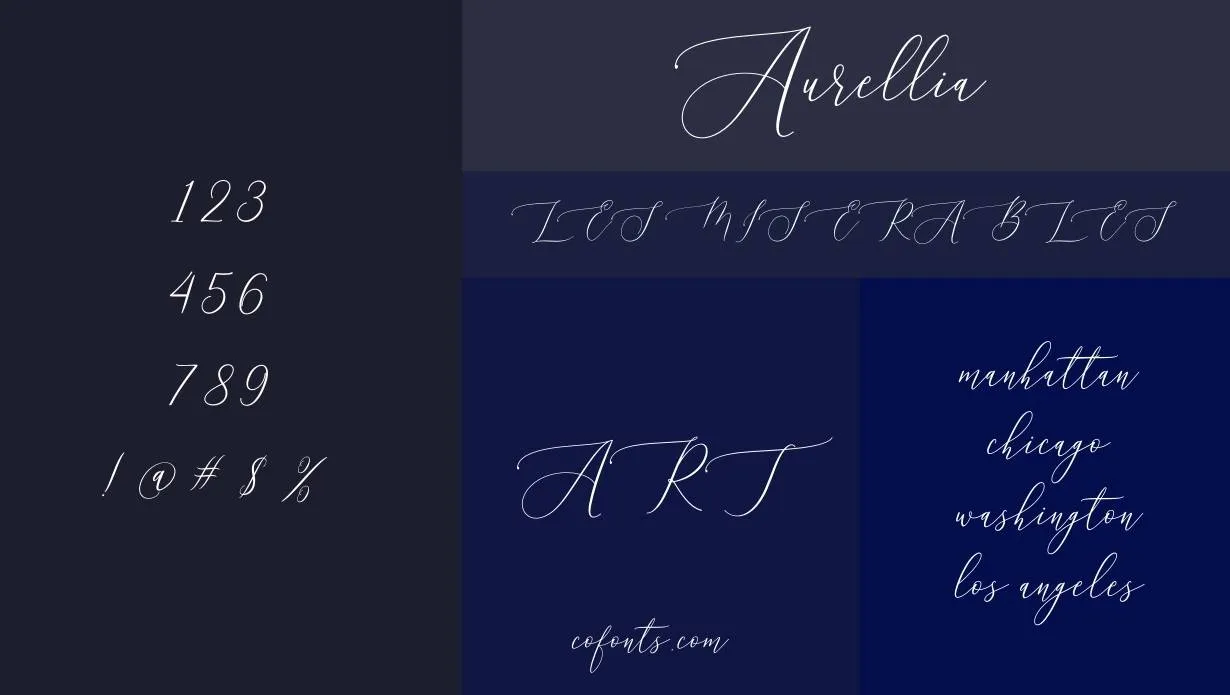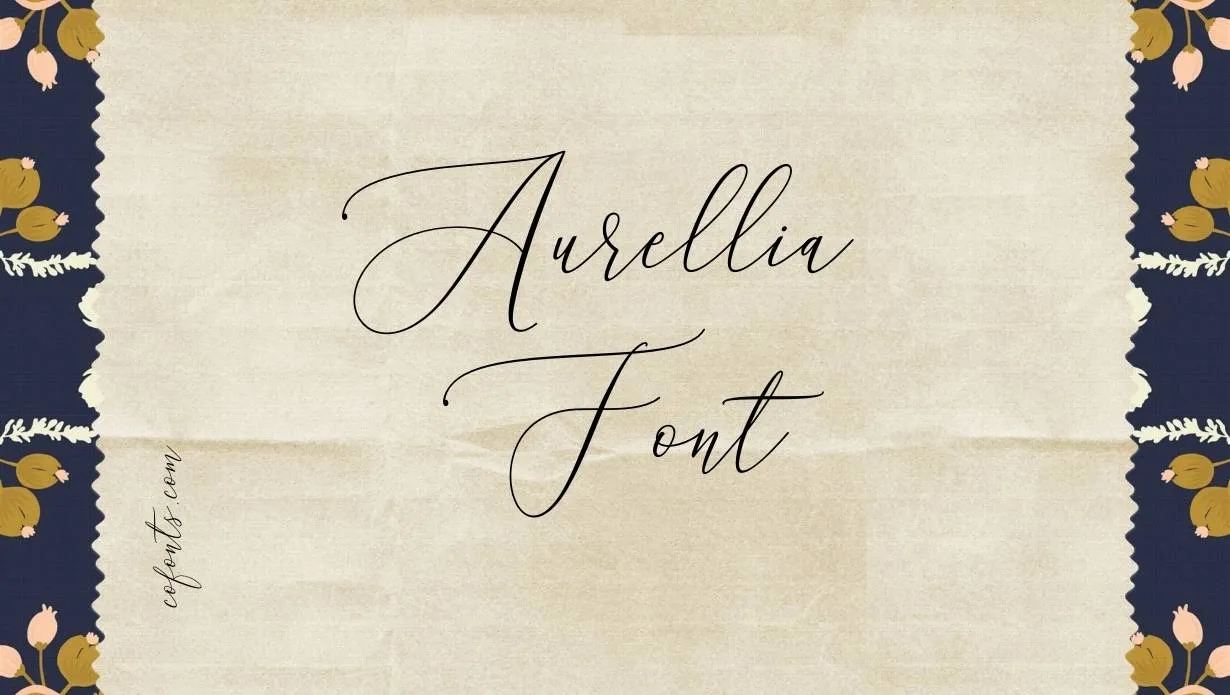
Aurellia Font Free Download is a modern typeface available in multiple variants and styles.
- Aurellia Font Regular
- Aurellia Font Bold
- Aurellia Font Italic